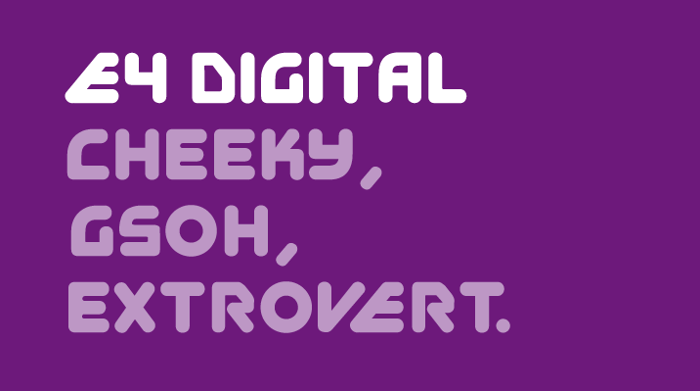
EFour Digital Font
I remade the E4 Digital font for fun. Also, I modeled it off of Junegull.
2 years agohey i just wanted to know the numbers in e4 digital were actually from nine network logo font v2 @538Fonts